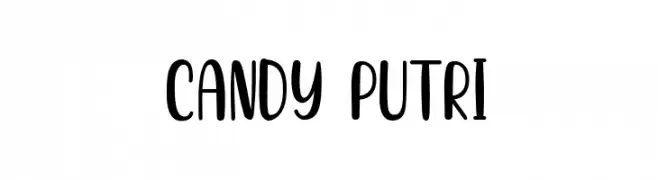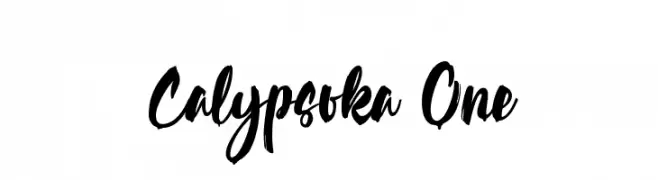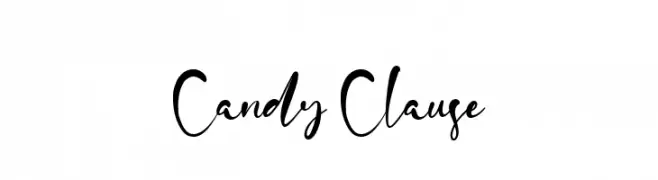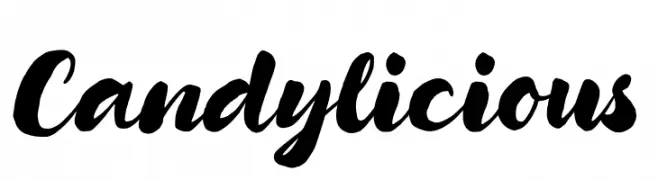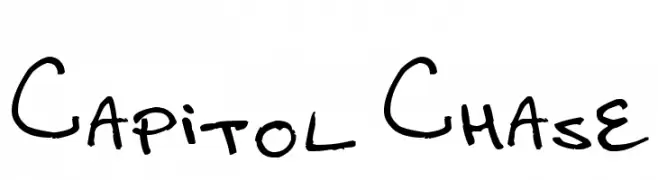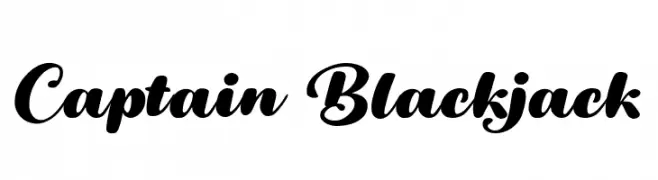
A bold and expressive script font with dynamic, flowing letterforms.
A playful script font with dotted patterns and a whimsical style.
A playful, casual handwritten font with smooth, flowing lines.
A bold, cursive font with a dynamic and flowing handwritten style.
A bold, whimsical script font perfect for festive and playful designs.
A whimsical, illustrative display font with each character embedded in unique artwork.
A playful and modern font with tall, narrow letters and consistent stroke width.
A lively, handwritten script font with medium contrast and elegant curves.
A bold, modern font with geometric elements and high contrast.
A graceful script font with elegant, flowing lines.
A playful, hand-drawn font with a sketch-like, double-line style.
A jagged, horror-themed font with sharp, serrated edges.
A bold, expressive script font with dynamic, flowing strokes.
A bold, expressive script font with high contrast and dynamic flow.
A dynamic and expressive script font with elegant strokes and decorative flourishes.
A gothic, medieval-inspired font with sharp serifs and bold styling.
A bold, dynamic script font with elegant, flowing cursive letters.
A playful, rounded font with smooth curves and a friendly appearance.
Elegant cursive script with flowing, handwritten style.
A bold, playful font with a whimsical, hand-drawn style.
A bold, distressed font with a hand-drawn, textured style.
A bold, distressed font with a rugged, handcrafted appearance.
A bold, manga-inspired font with dynamic brush stroke effects.
A bold, dynamic brush script font with fluid, interconnected strokes.
A fluid, elegant handwritten font with a natural cursive flow.
A bold, modern sans-serif font with clean lines and uniform strokes.
A modern, bold sans-serif font with geometric influences and consistent stroke width.
A playful, handwritten font with smooth curves and a casual style.